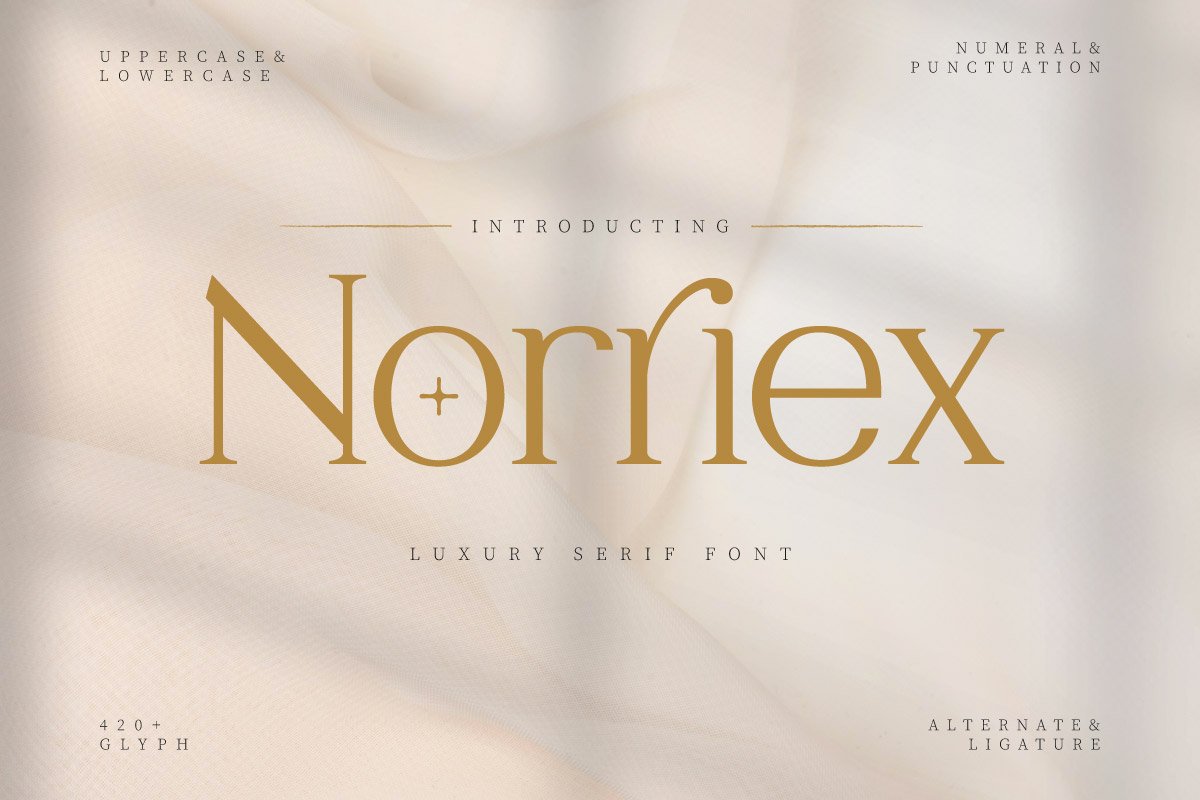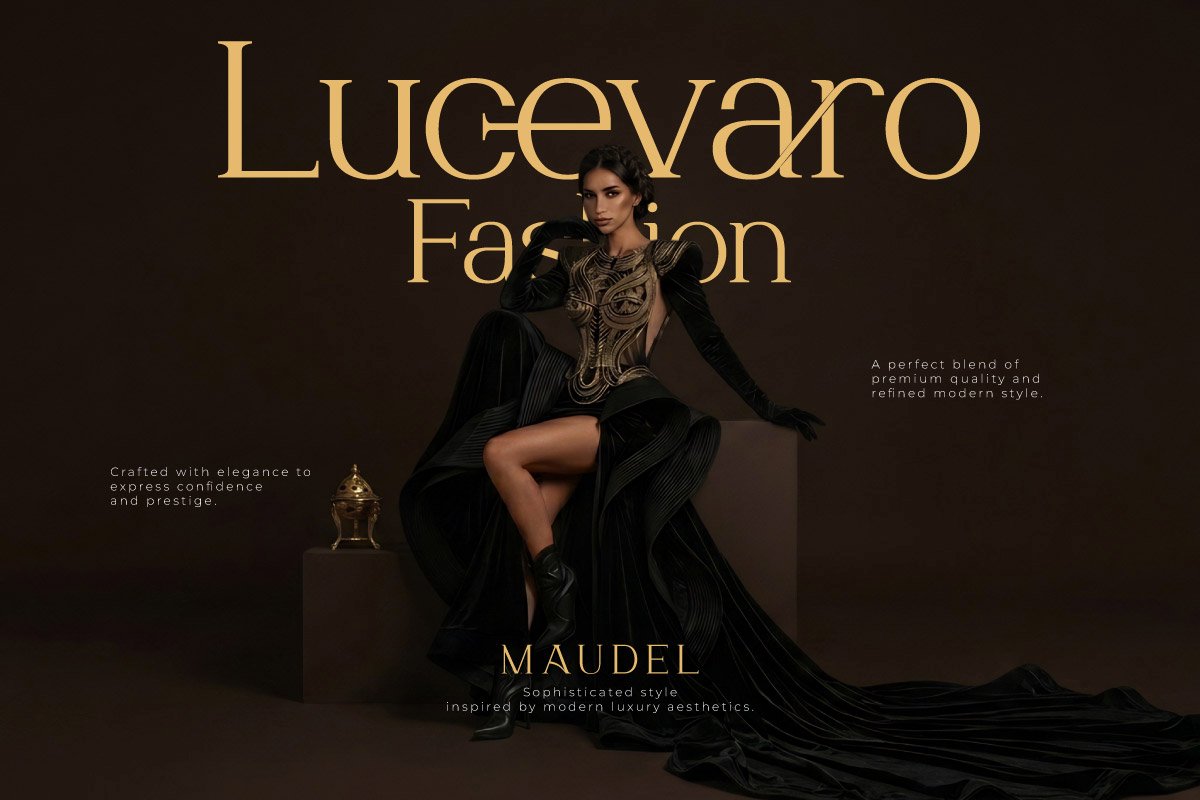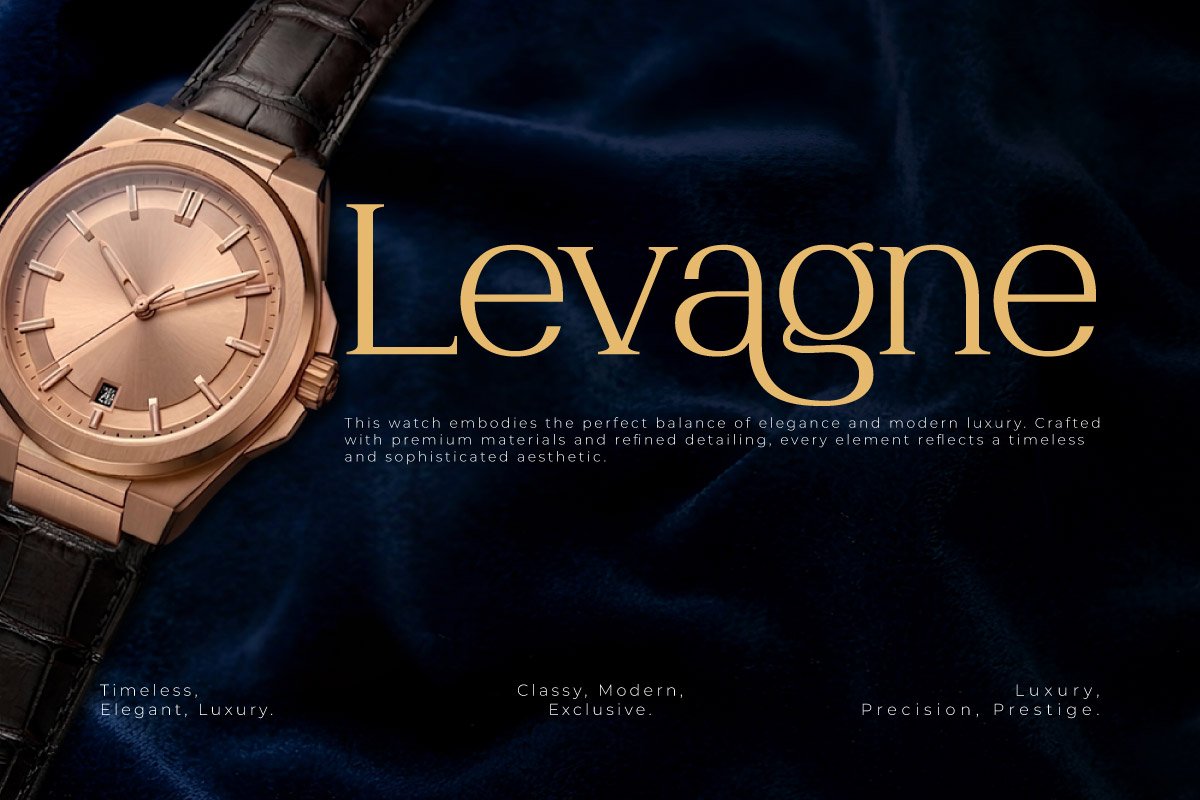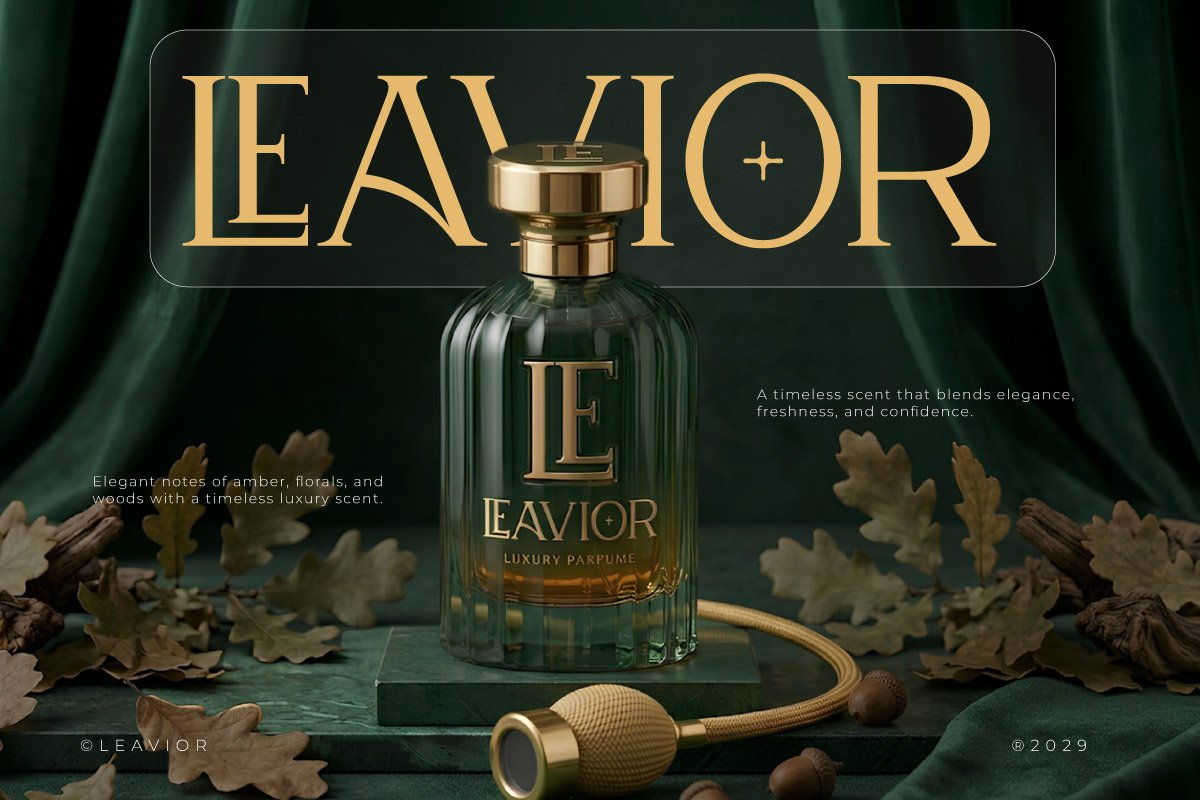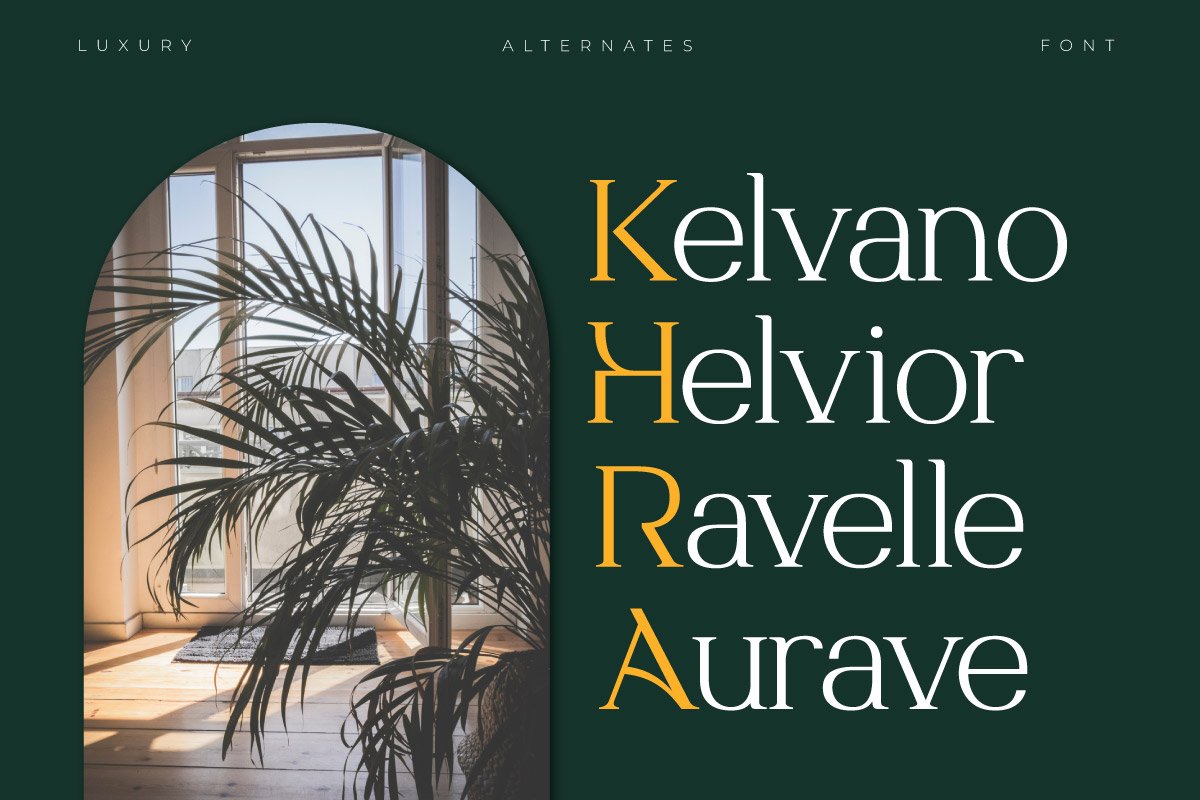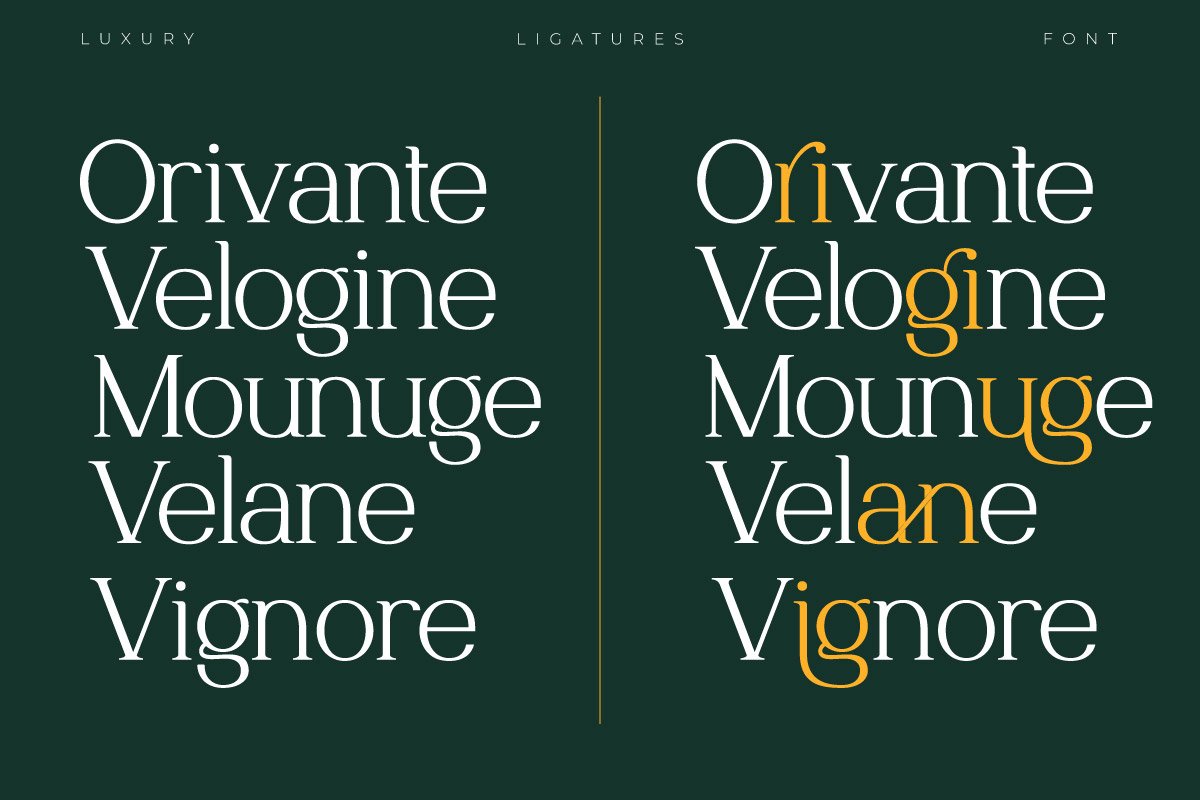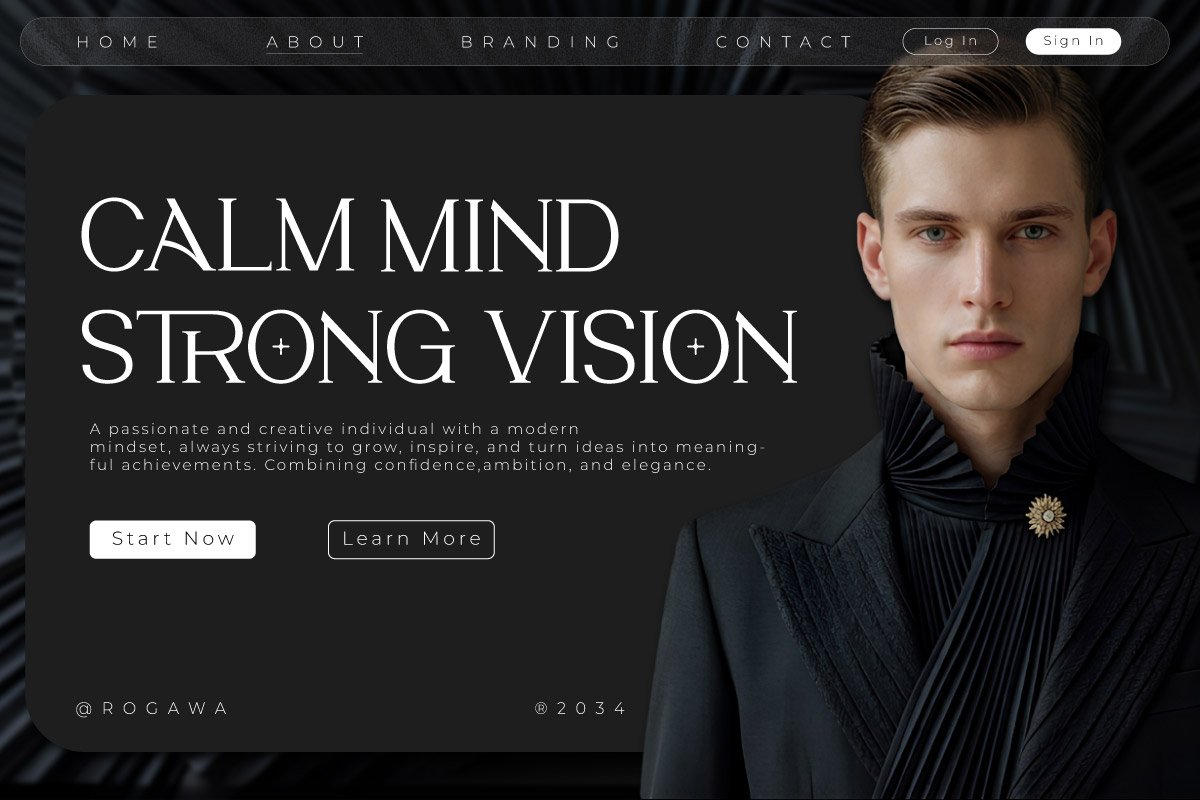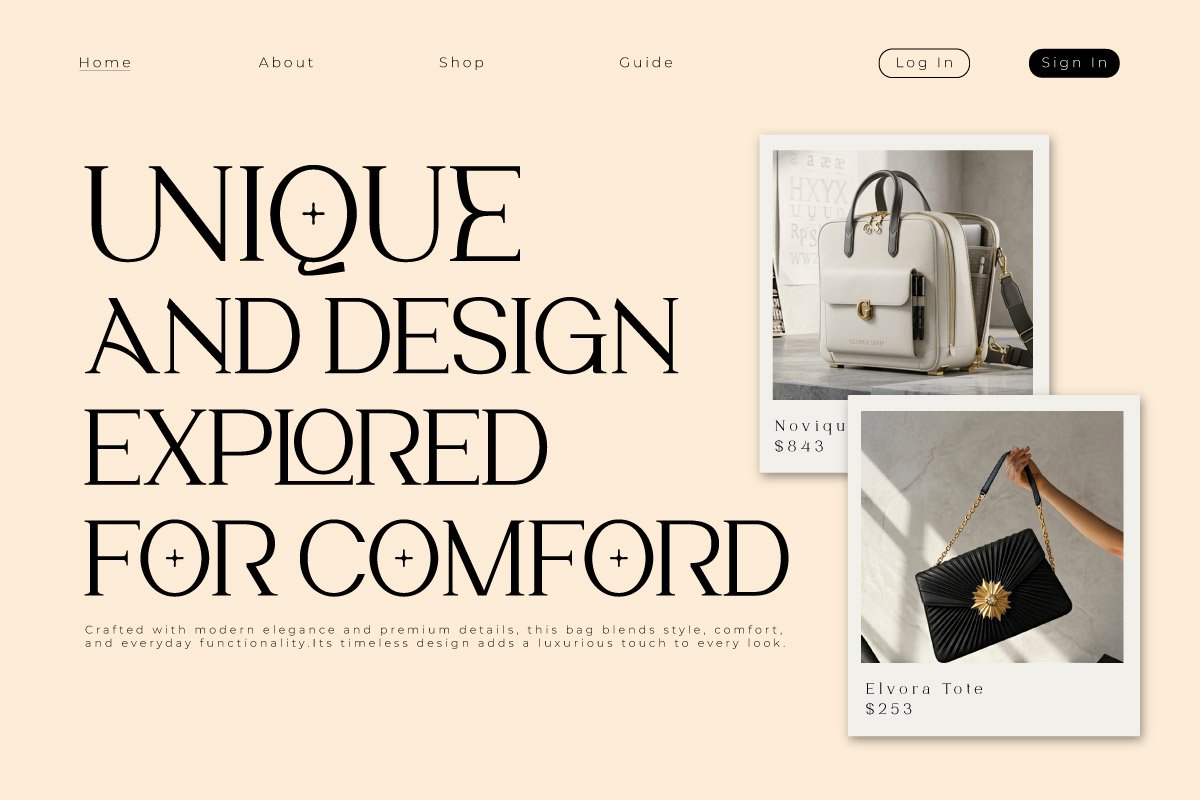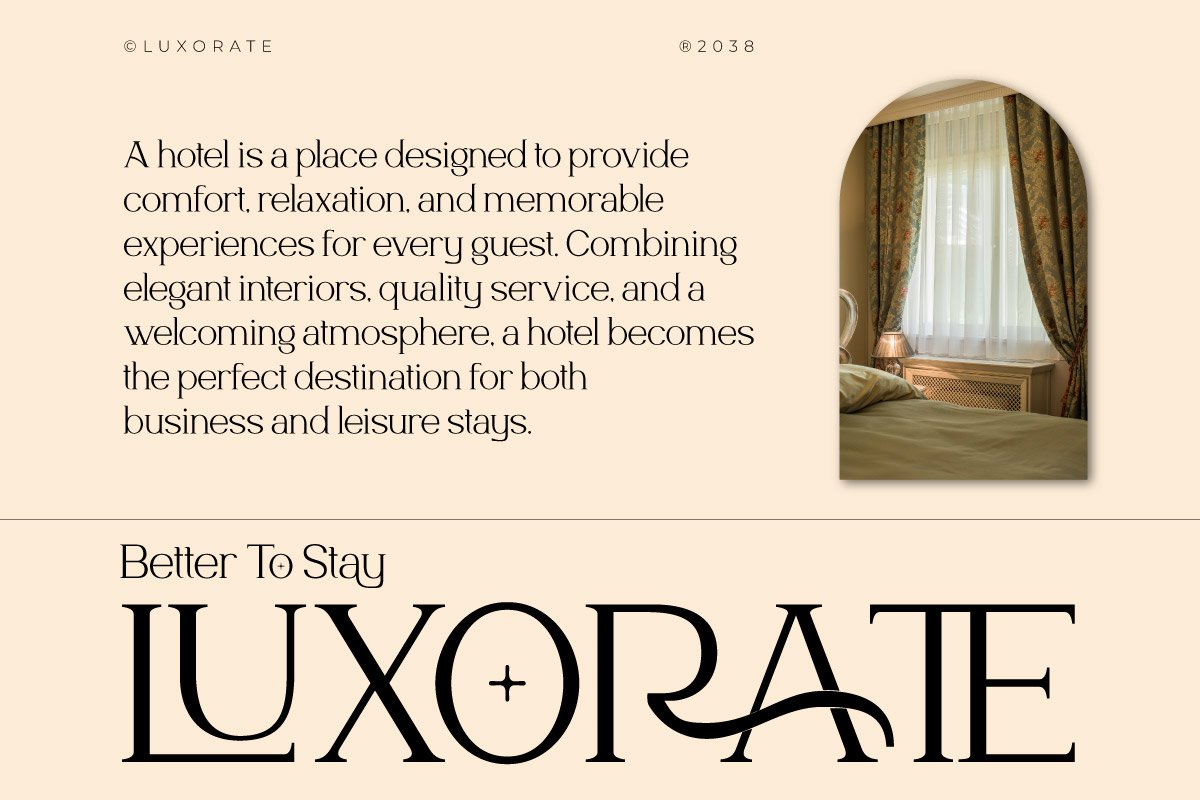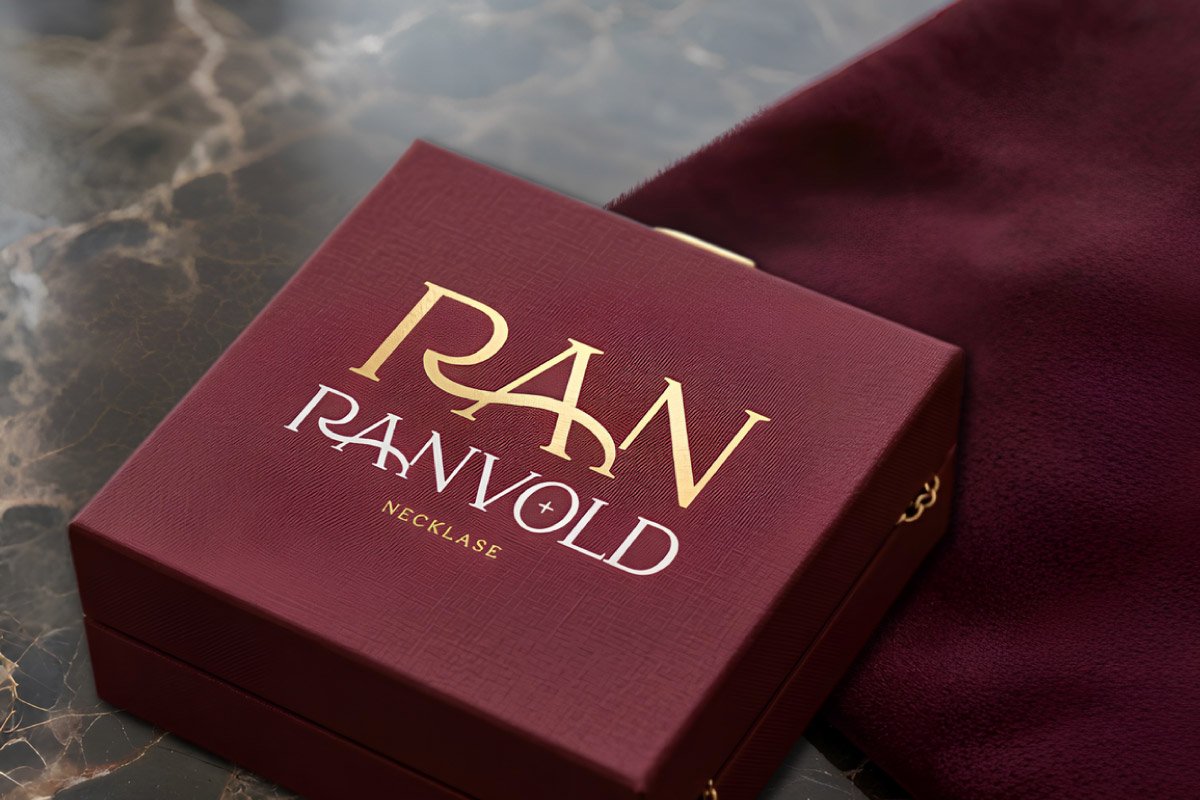
- Norriex – Luxury Serif Font
Norriex – Luxury Serif Font is a premium serif typeface designed to bring elegance, sophistication, and timeless luxury into modern design projects. Featuring refined serif details, sleek letterforms, and balanced proportions, this font creates an upscale visual identity that feels both modern and classic. Its clean yet luxurious appearance makes Norriex ideal for brands seeking an exclusive and high-end aesthetic.
This typeface is perfect for fashion branding, luxury logos, beauty packaging, editorial layouts, jewelry campaigns, and premium business identities. The combination of classic serif styling with modern minimalism creates strong visual impact for headlines, logotypes, and upscale branding applications.
Featuring 420+ glyphs, stylistic alternates, ligatures, and multilingual support, Norriex offers excellent flexibility for designers creating elegant and distinctive visuals. Its sophisticated serif style makes it an outstanding choice for luxury branding and fashionable design projects.